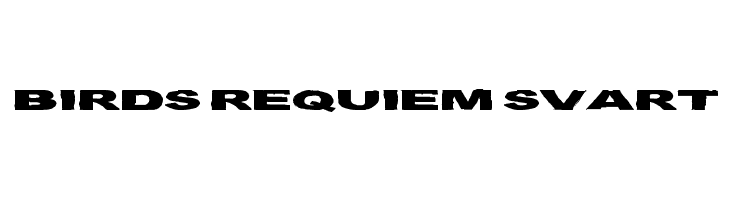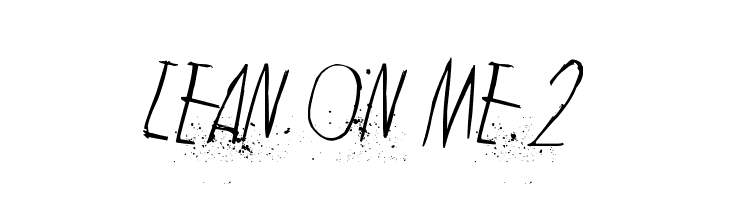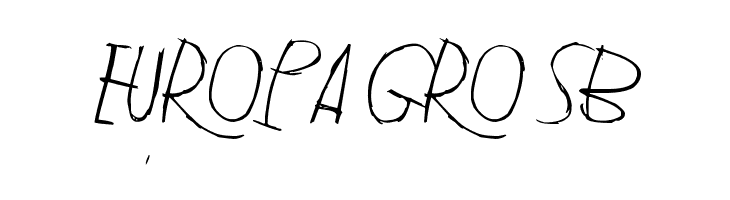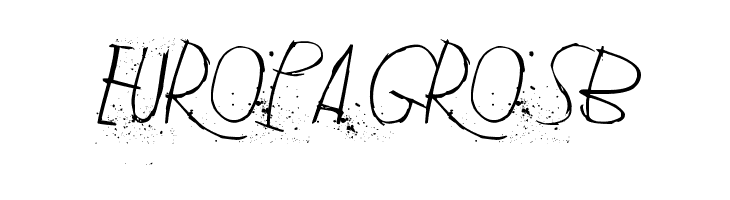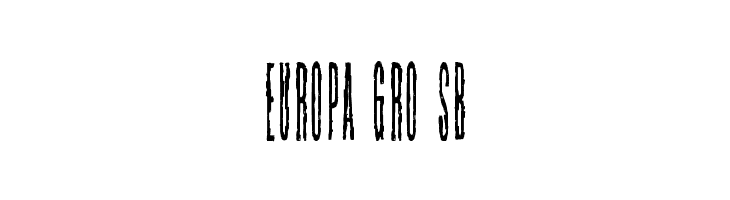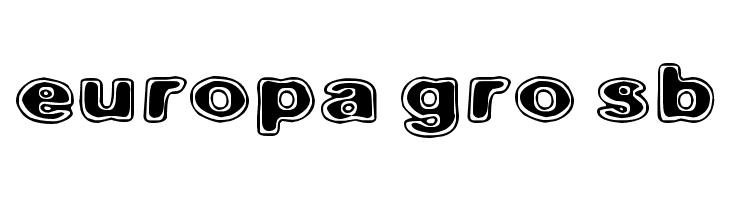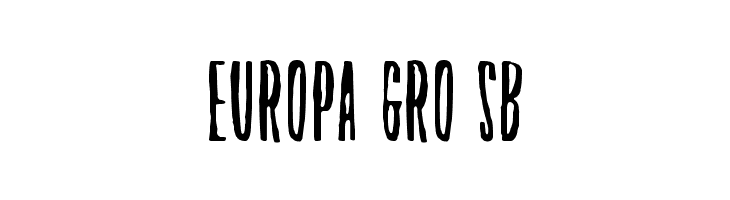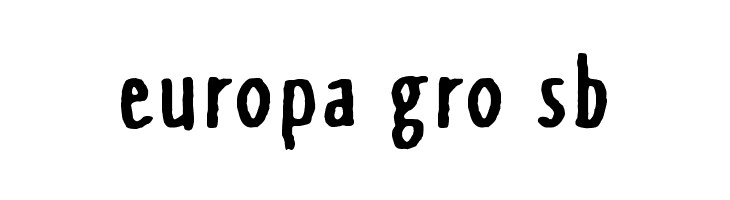
• Lean on me
A lively, handwritten font with irregular strokes and a playful, dynamic style.
• Lean on me 2
A hand-drawn, distressed font with a grunge aesthetic and dynamic style.
• Kasuaari kirjastossa
A bold, hand-drawn font with an artistic and playful style.
• Jinzingoer
A whimsical, hand-drawn font with a playful and informal style.
• Grapevine
A tall, narrow font with a distressed, vintage texture.
• Pintaväre
A bold, playful font with a three-dimensional outline effect.
• On the horizon
A bold, elongated font with a hand-drawn, vintage feel.
• Instant Nirvana
A hand-drawn, playful font with bold, rounded strokes and an informal style.
• Birds Requiem
A bold, outlined font with a modern, three-dimensional effect.
• Birds Requiem Svart
A bold, distressed font with thick strokes and a strong presence.